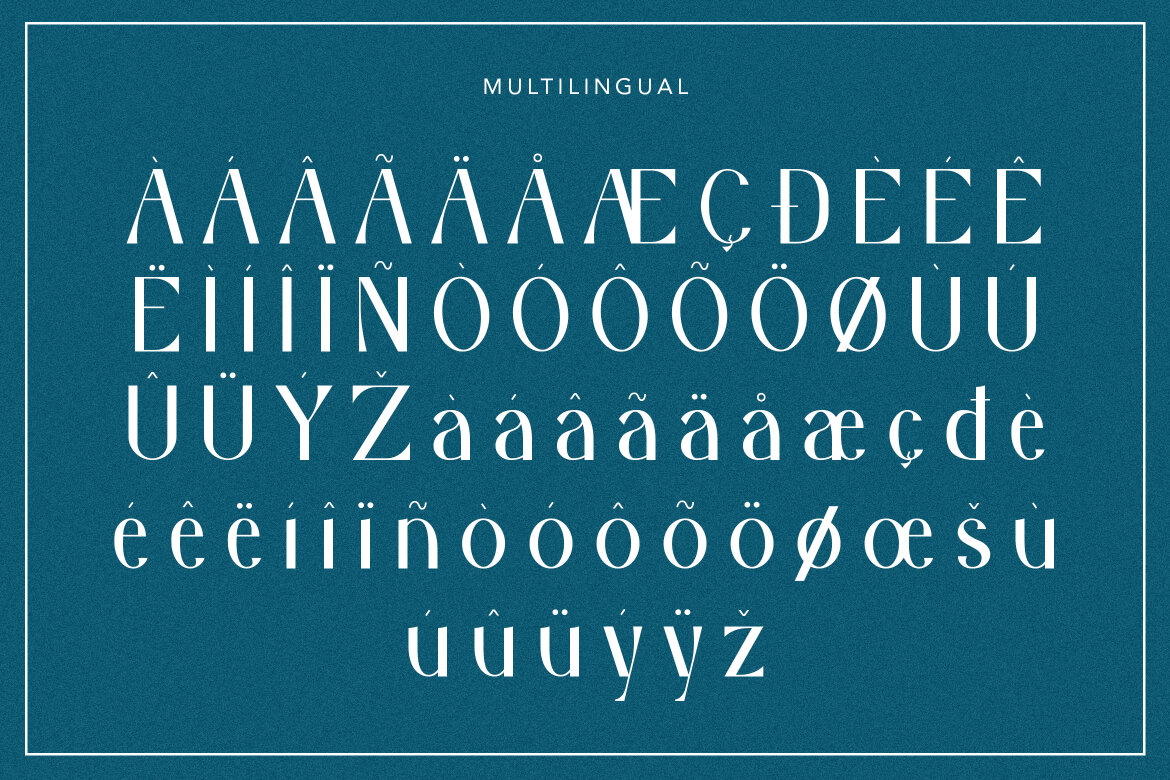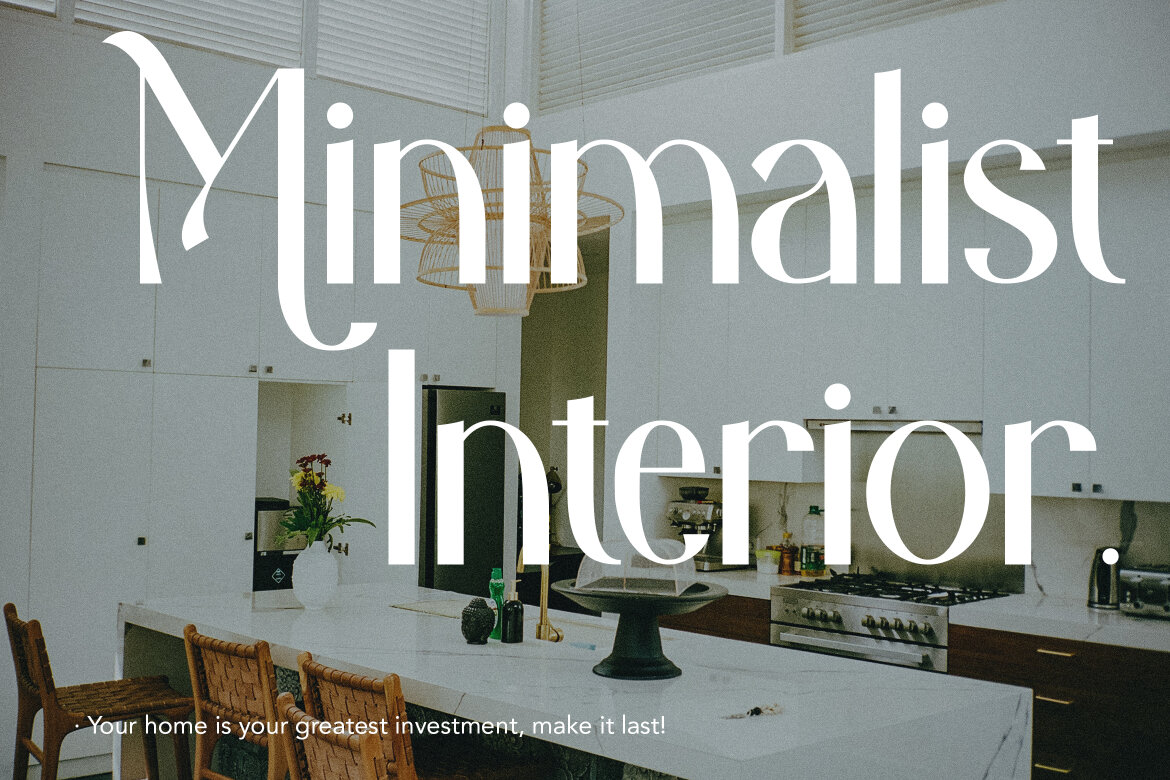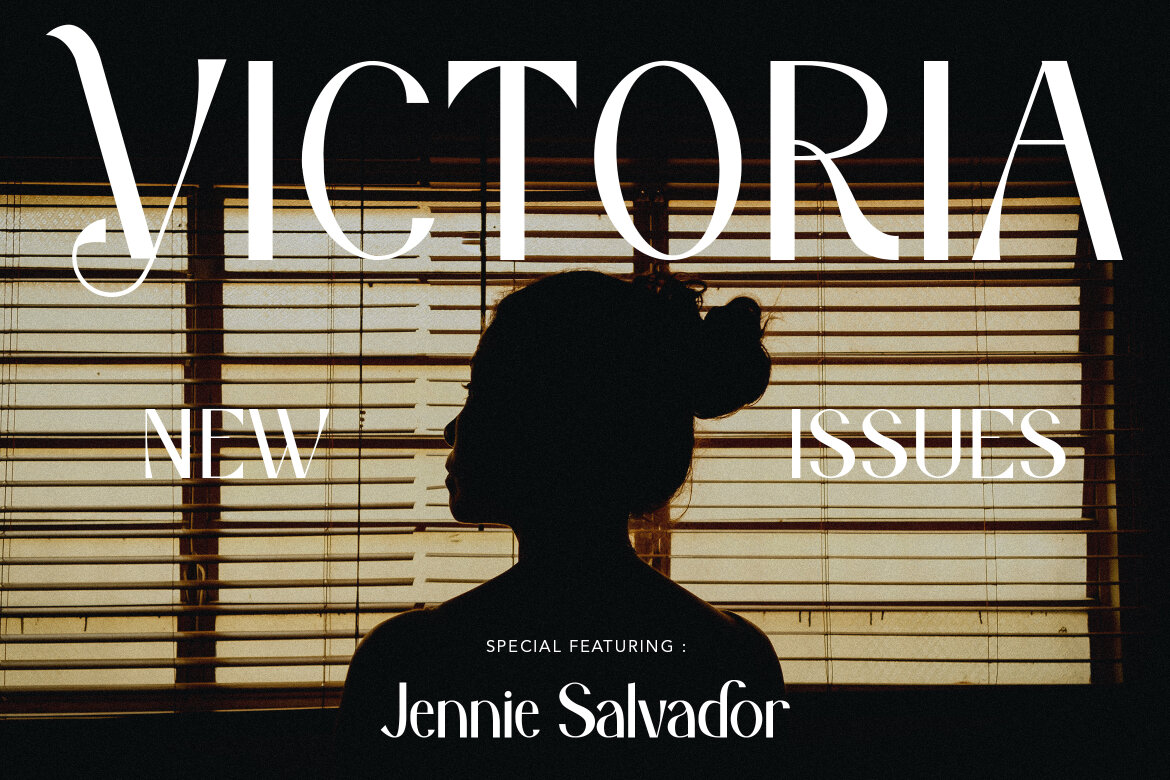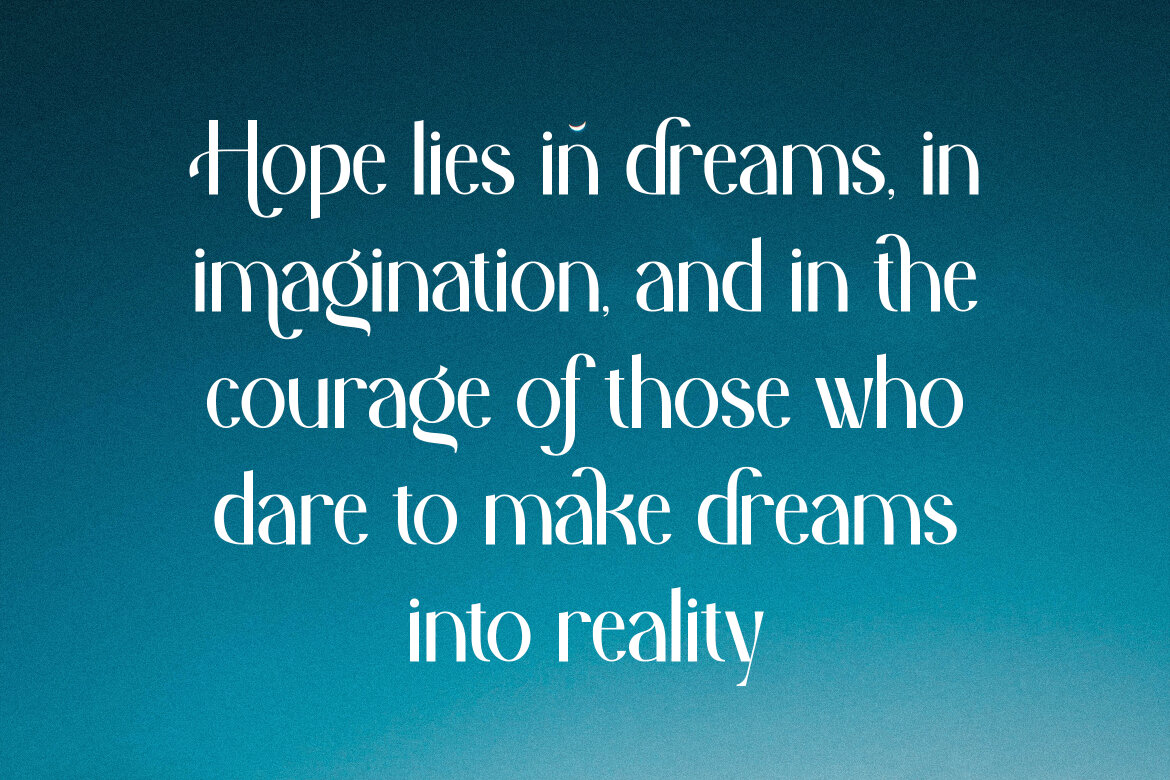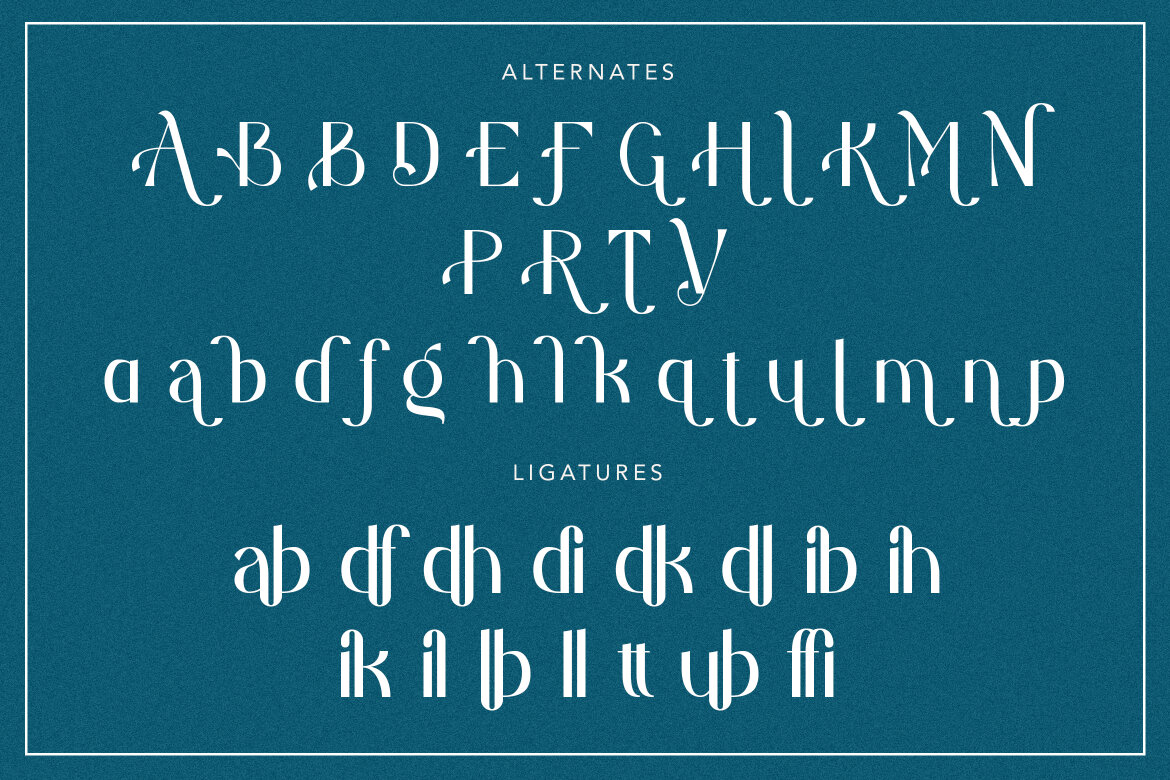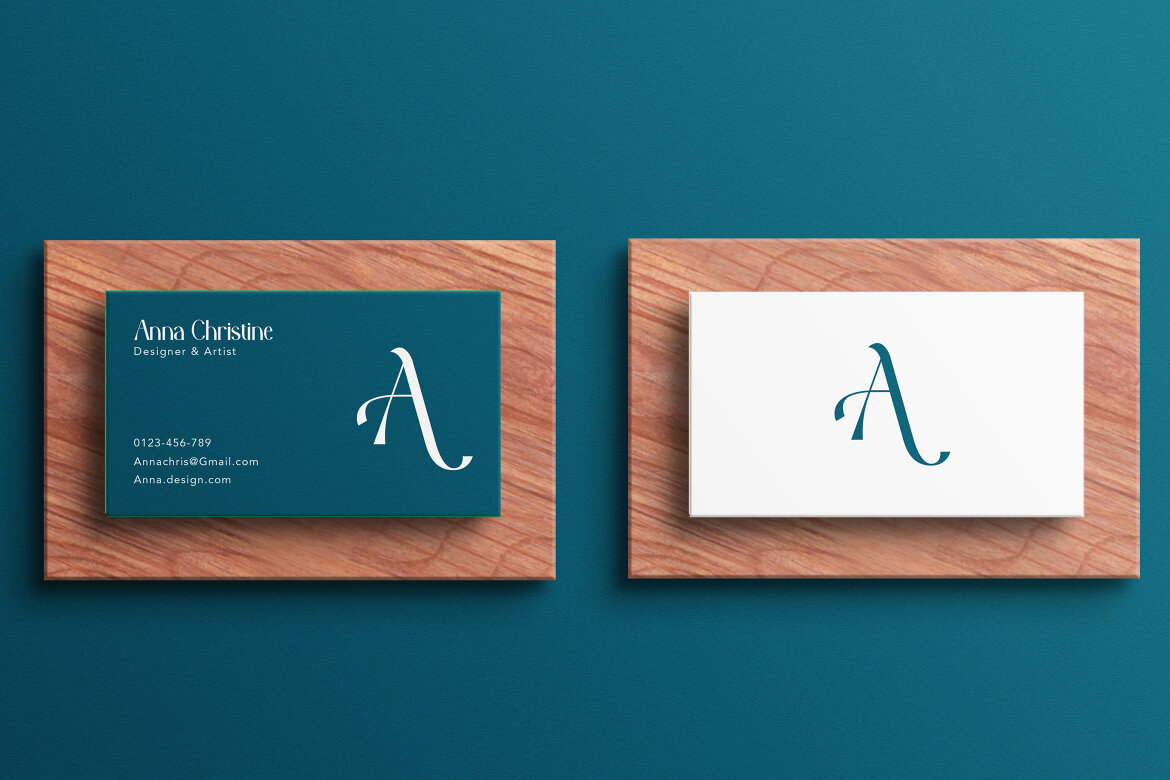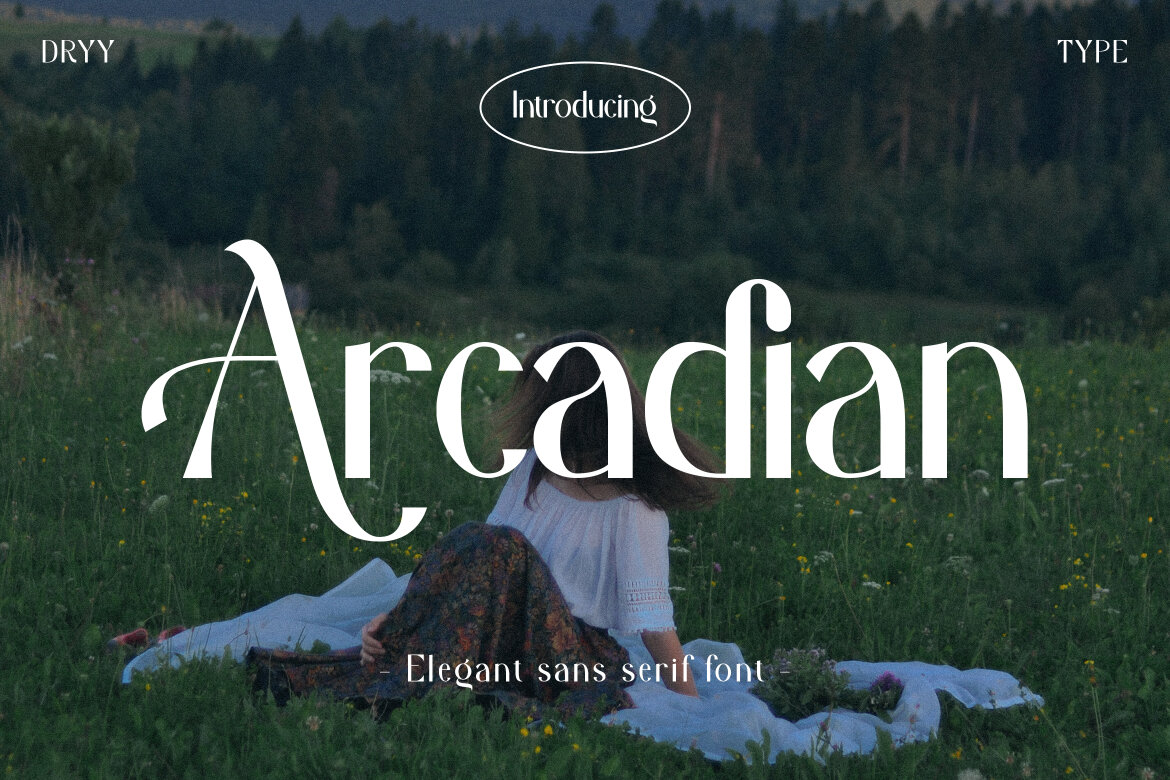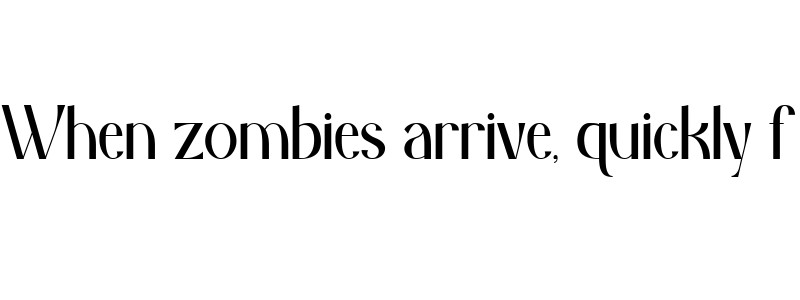
Arcadian - FREE Beauty Sans Font
Arcadian Font
A elegant sans serif font that has a unique character and is elegant to use.
Arcadian is a display type font that is currently a trend. This font I've created is incredibly versatile, and fits well with a variety of designs, elevating them to the highest level. Add this font to your favorite creative ideas and see how it turns out!
• features: uppercase, lowercase, alternates, ligatures & multilingual